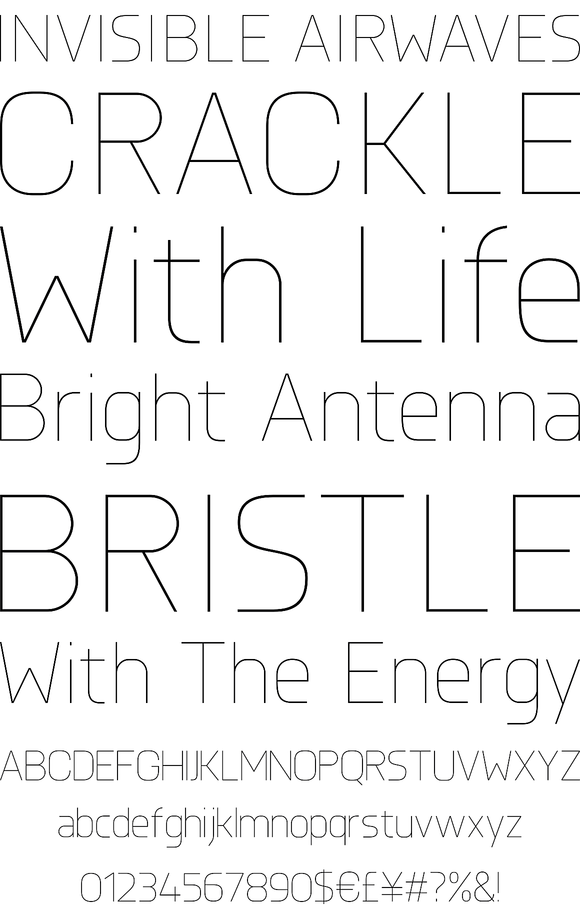
An elegant modern typeface with a subtle monoline appearance. The simplicity of the design creates clean forms best suited to identity, editorial and advertising uses. Details include 6 weights with italics, an extended European character set, cyrillic lettering manually edited kerning and Euro symbol. Knul has been extended to over 500 characters covering language support across Western, Central, South Eastern Europe and also includes Cyrillic lettering. Other key details include more harmonious letter fitting, consistent letter spacing and improved kerning.